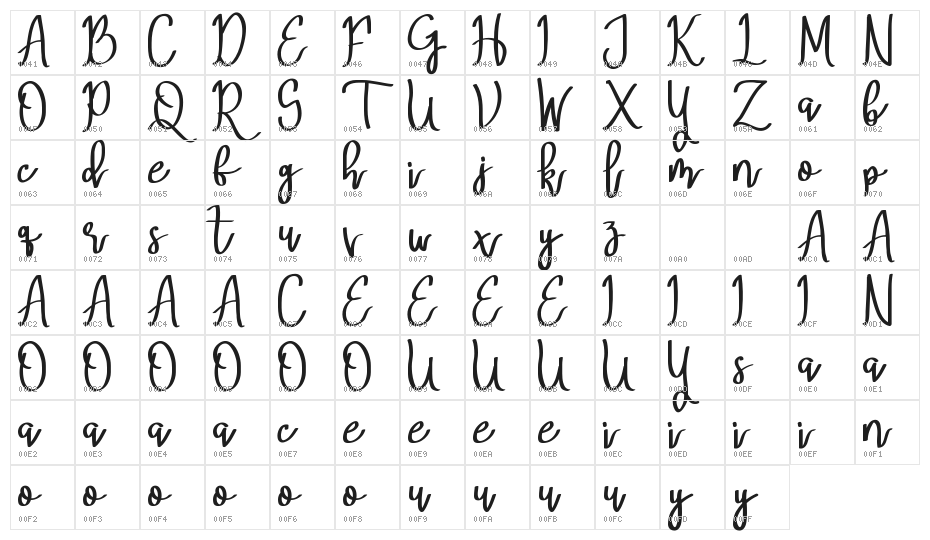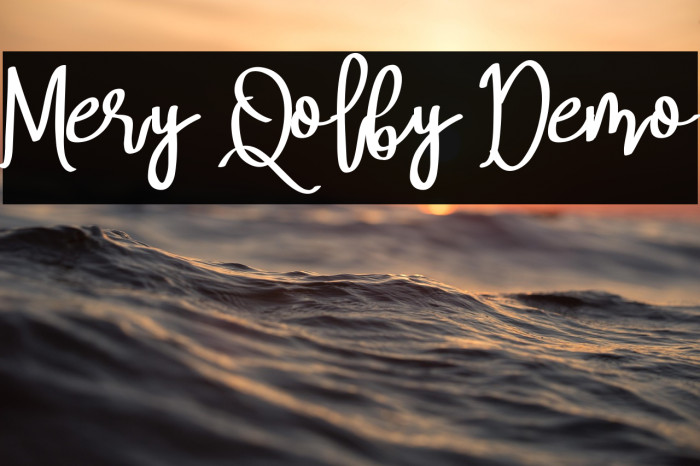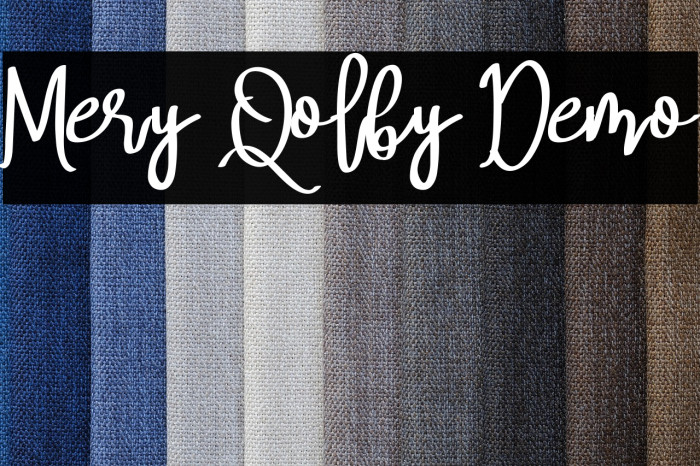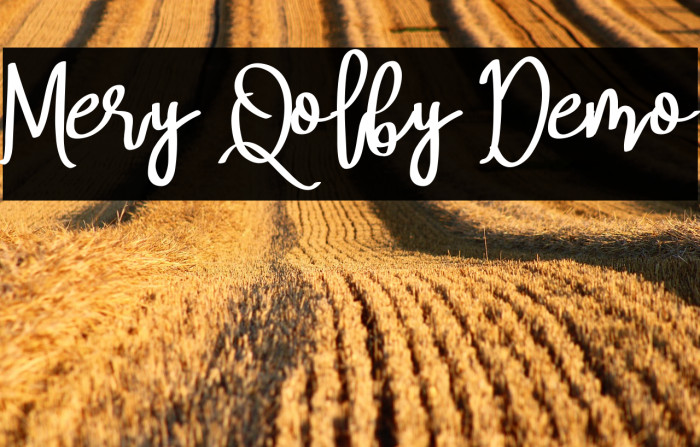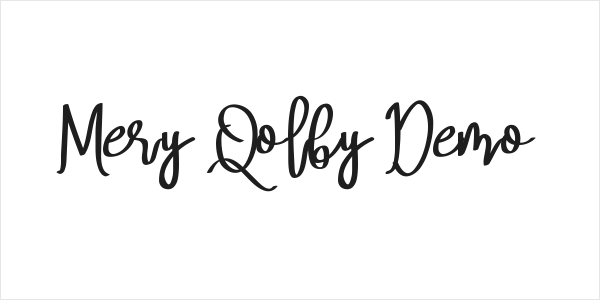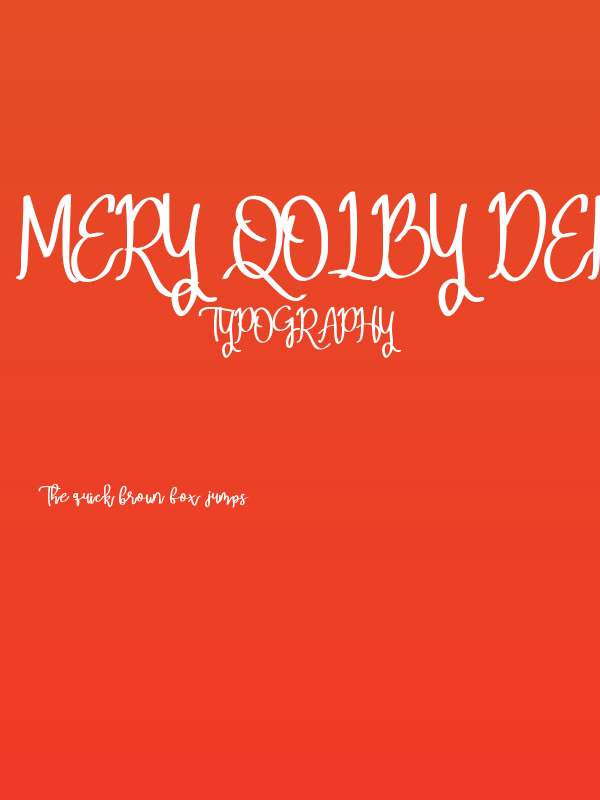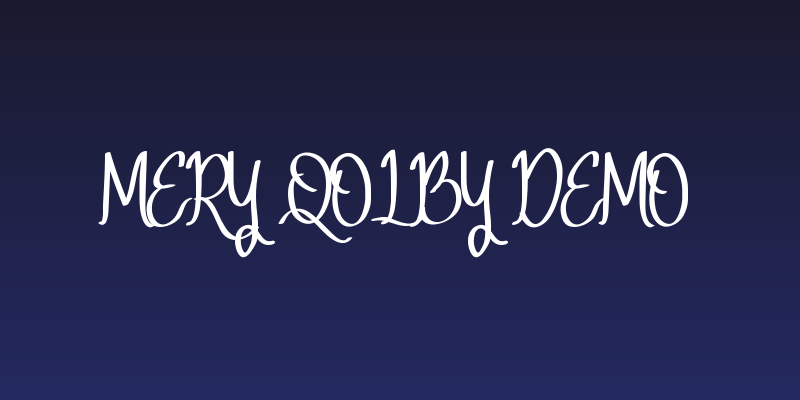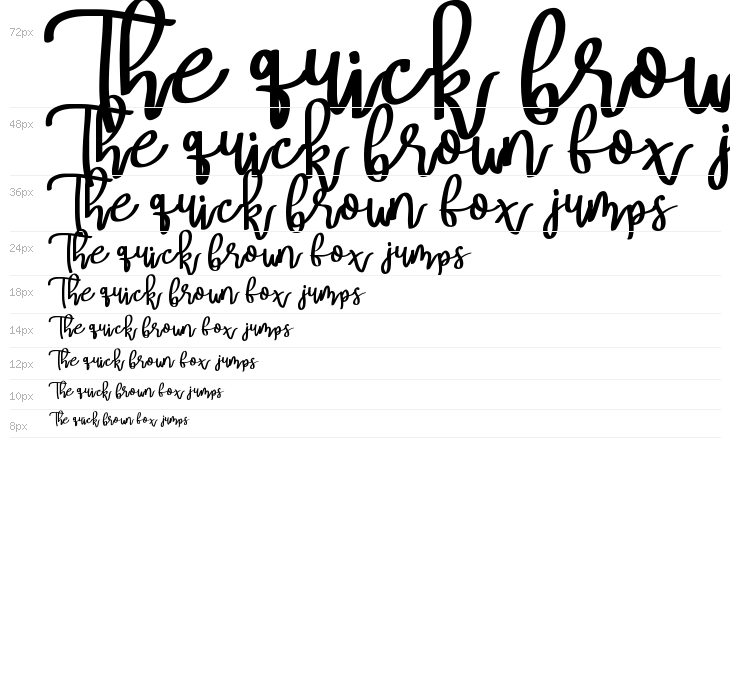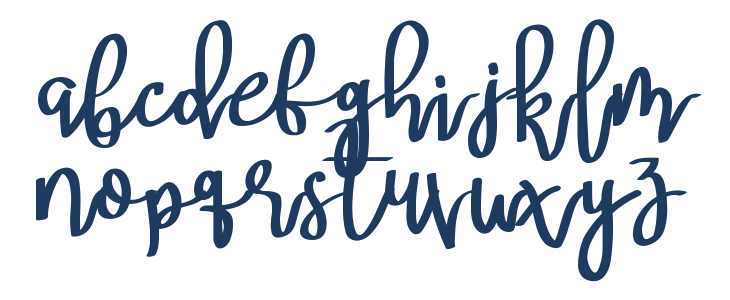
Mery Qolby Demo Font
Mery Qolby Demo Description
This font features a lively and flowing script style, characterized by its elegant and cursive letterforms. The uppercase letters are tall and slightly slanted, with decorative loops and swashes that add a touch of sophistication. The lowercase letters maintain a consistent flow, with smooth connections between each character, enhancing the script's fluidity. The numbers and special characters are designed to match the overall style, ensuring a cohesive appearance. This font's playful yet refined aesthetic makes it suitable for creative and expressive design projects.